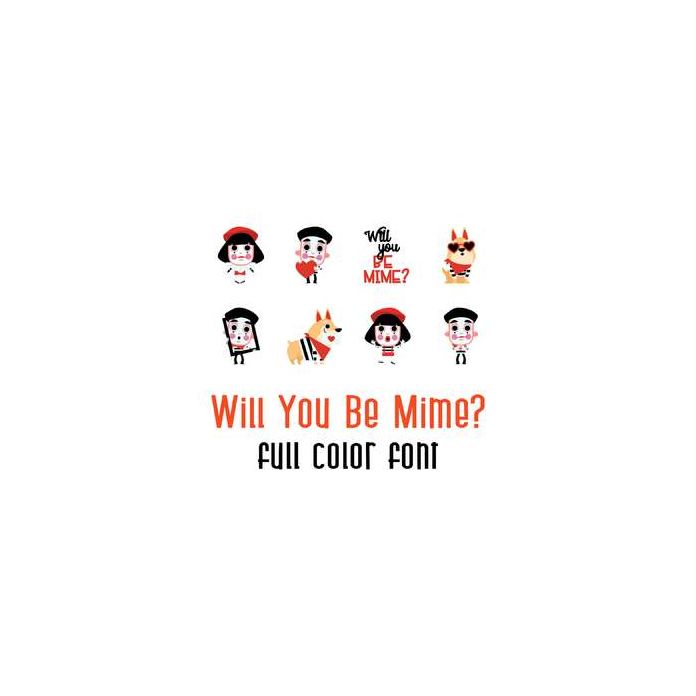
This adorable full color doodlebat font features cute mimes and dogs ready for Valentines. Perfect for cards, crafts, gifts, decor, scrap book pages, planner stickers and more!